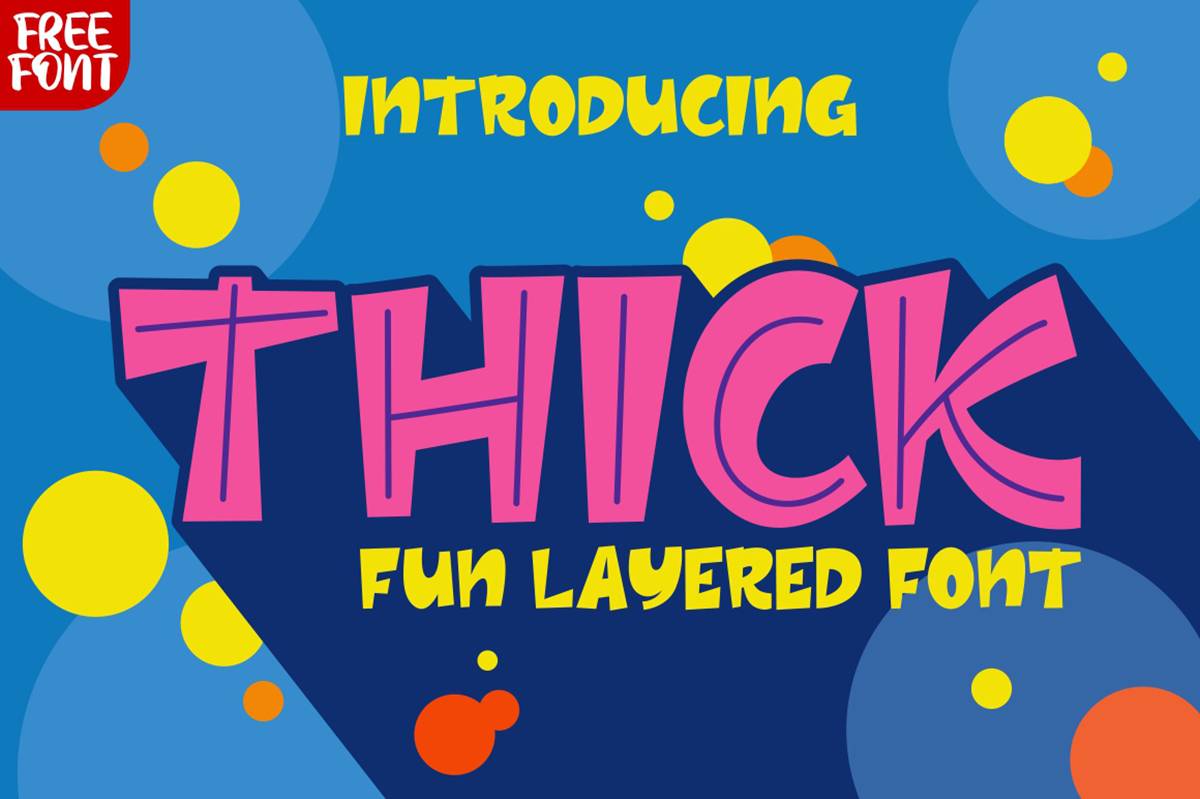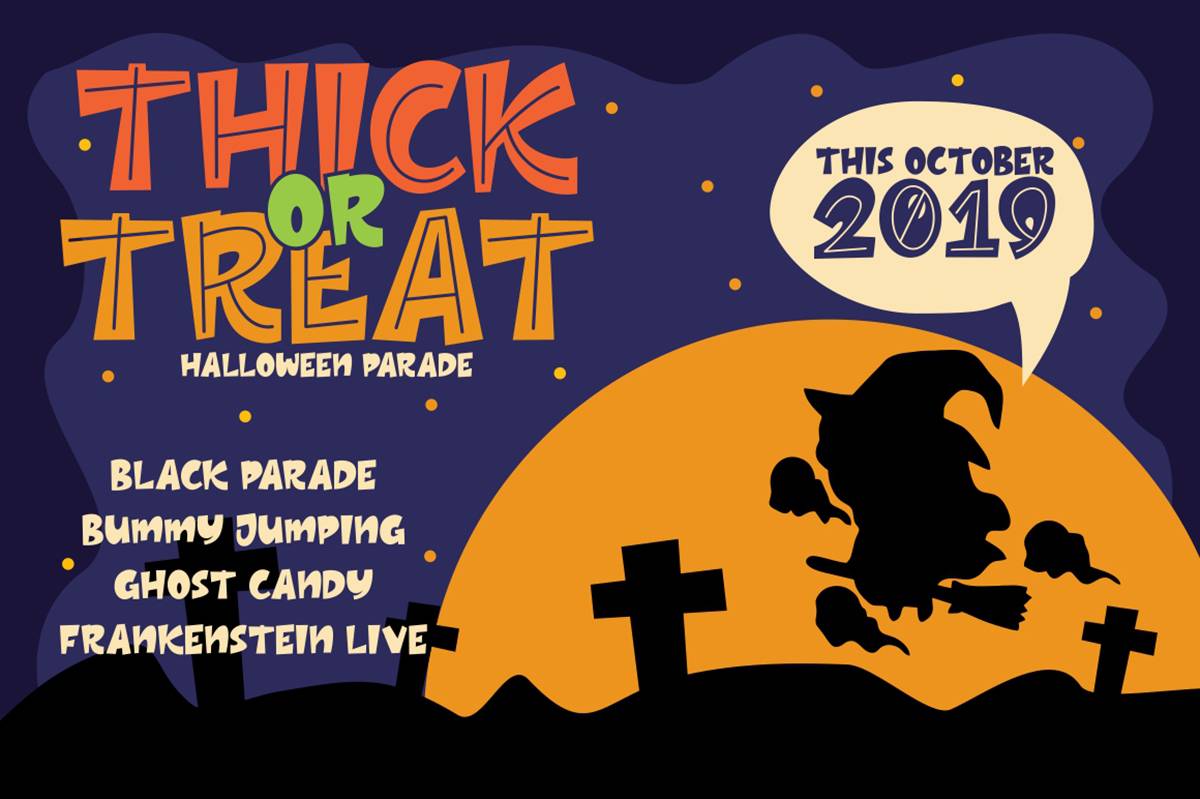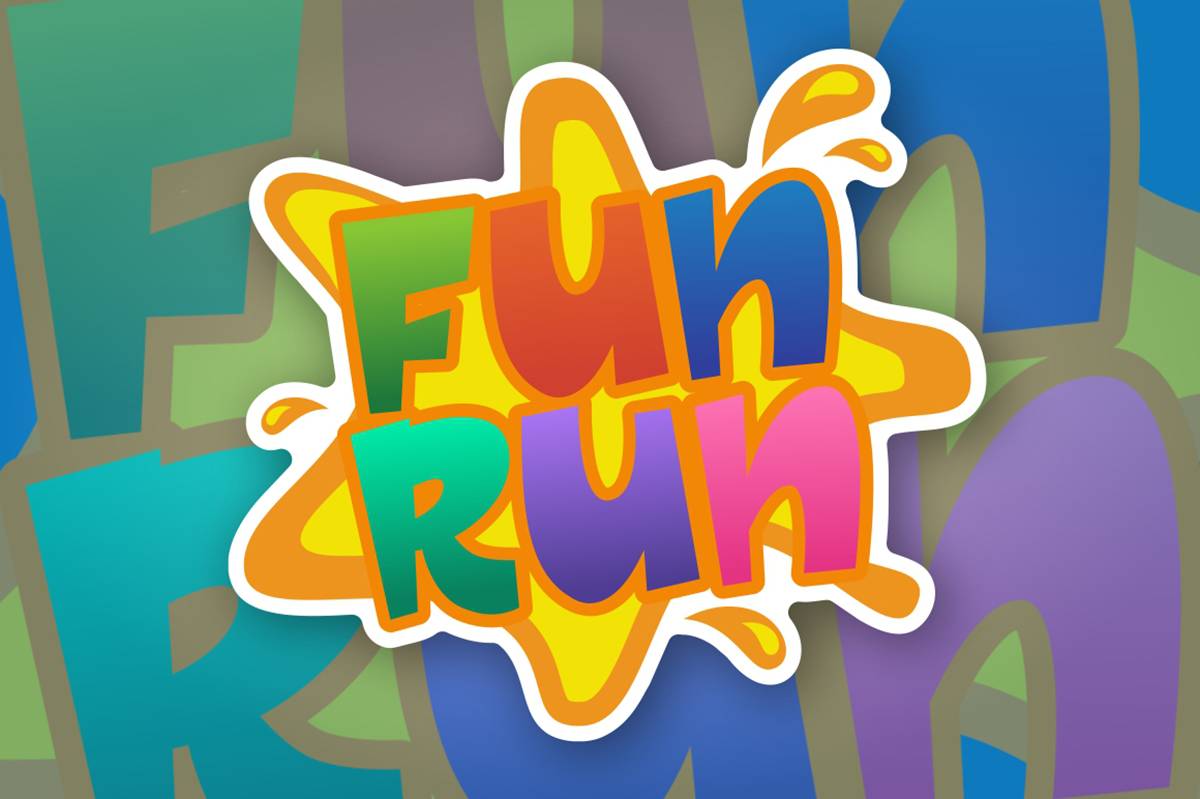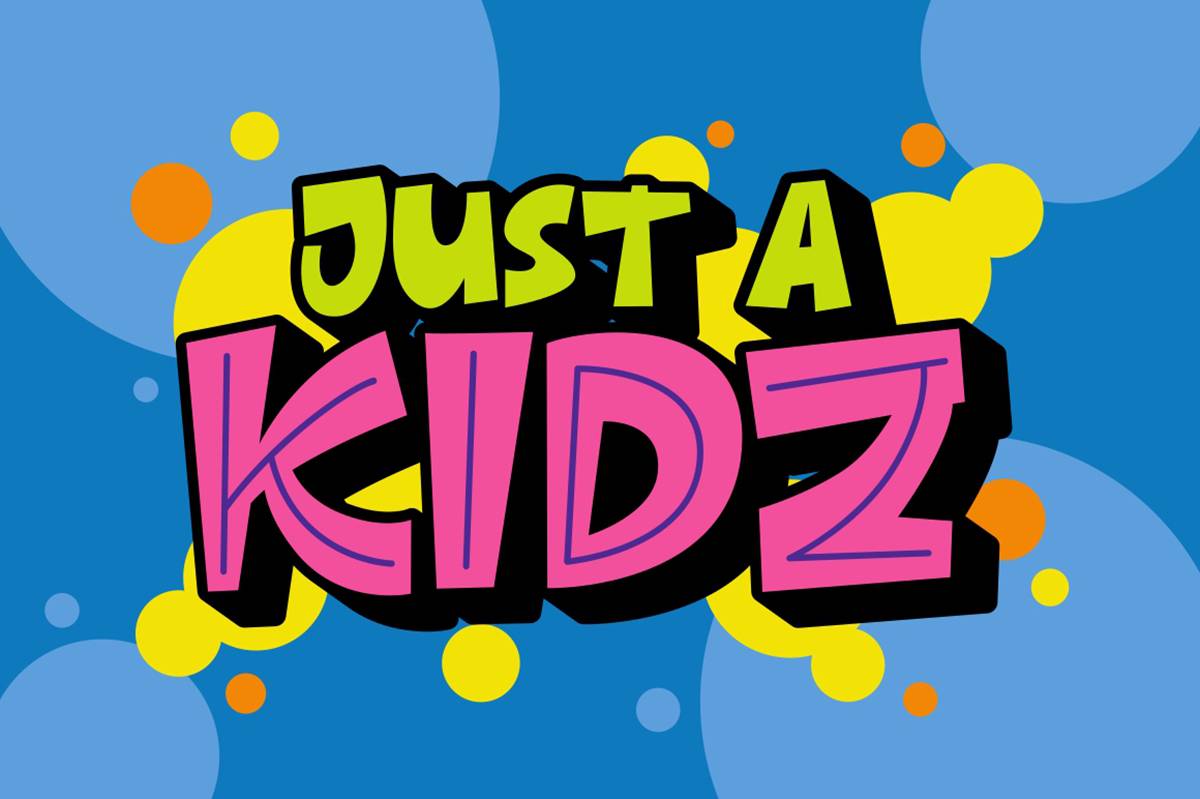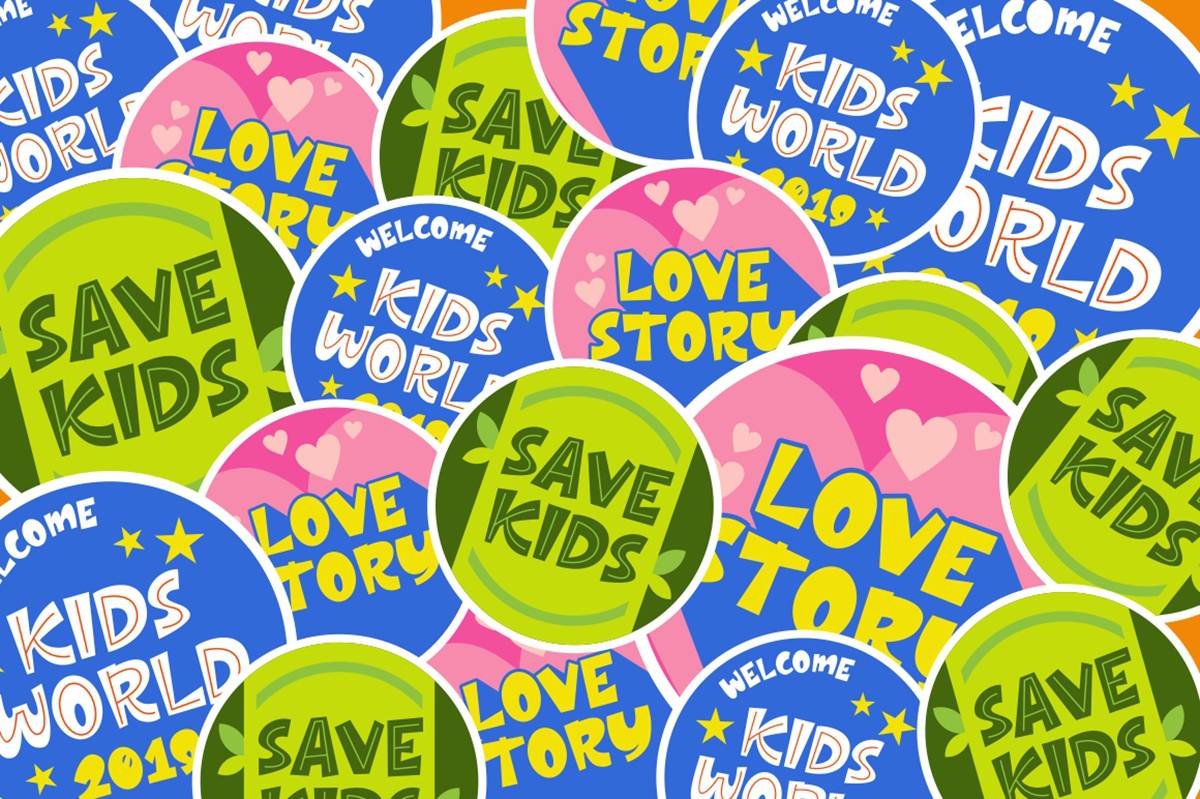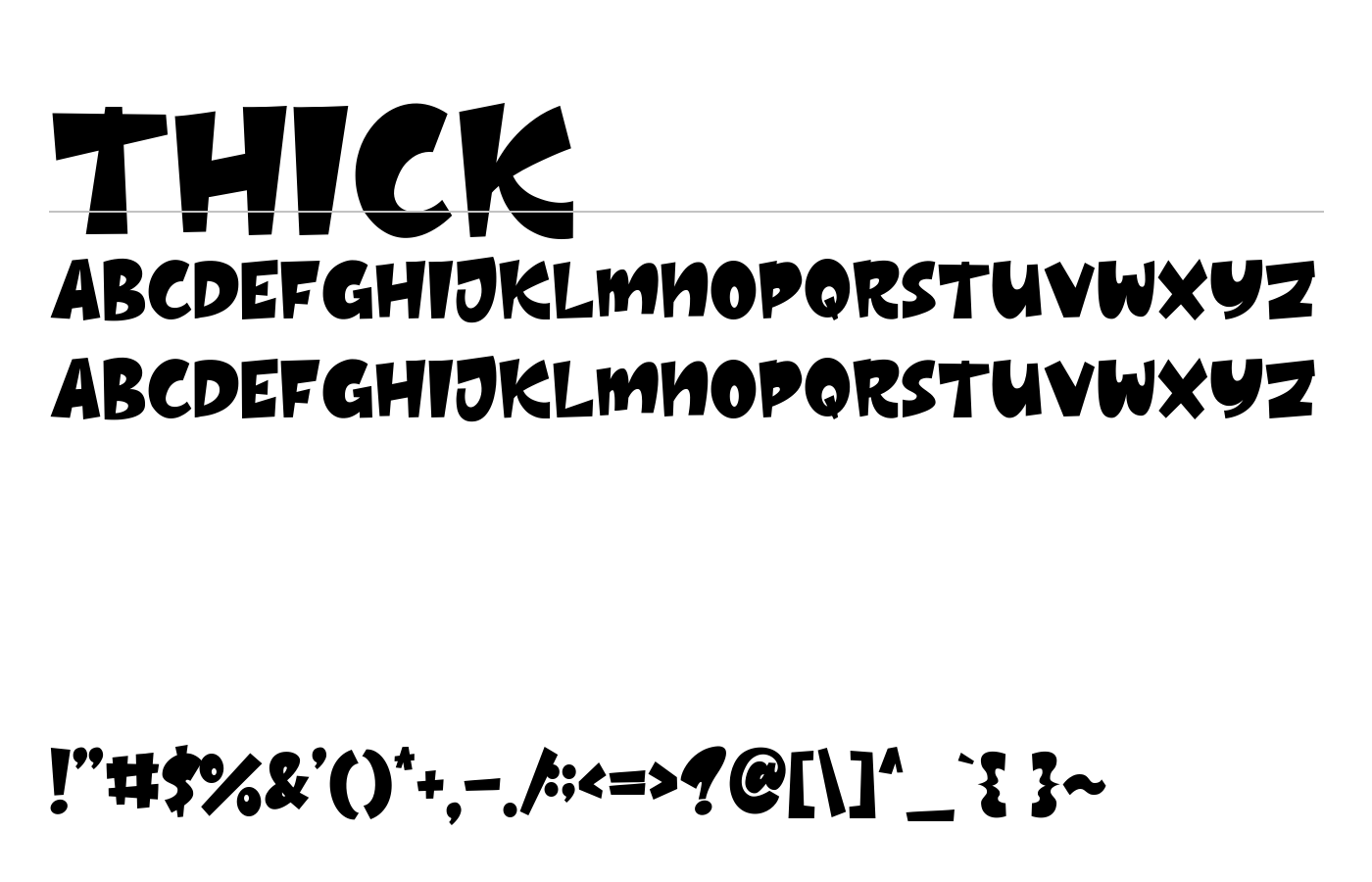
Thick Font is a bold, playful sans serif typeface characterized by heavy, uneven strokes and a lively, hand-drawn feel. Its wide, chunky letterforms with irregular shapes convey a fun and informal personality, making it ideal for creative, casual branding, posters, and eye-catching headlines. This font works best where a strong, friendly impact is needed rather than formal or text-heavy settings.
Thick Font
About Thick Font
| Font family | Thick Font |
| Release date | 2019-09-02 |
| Designer | Good Java Studio |